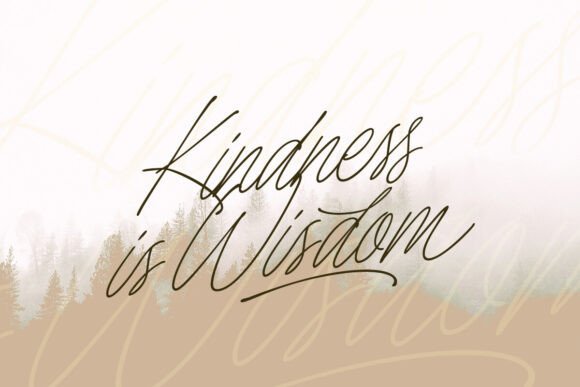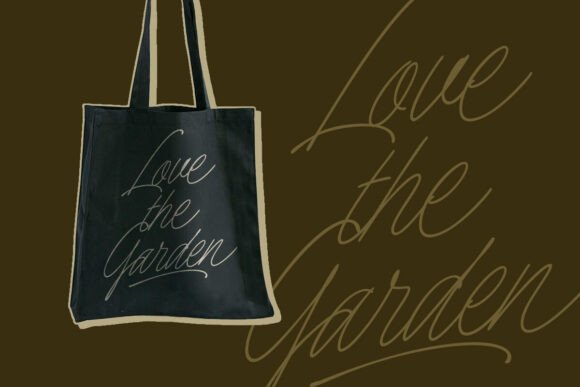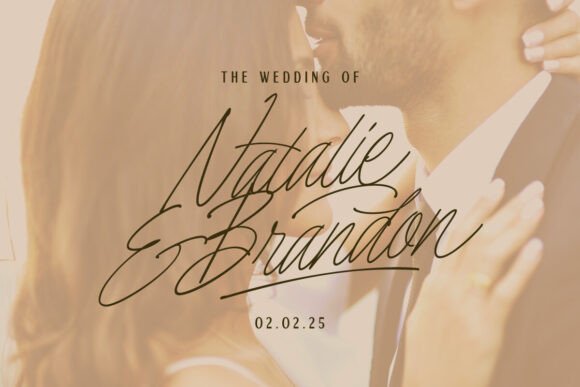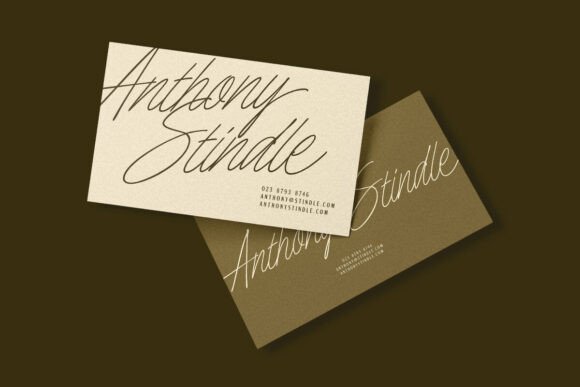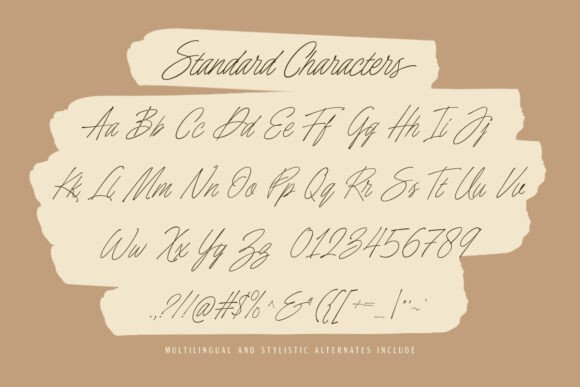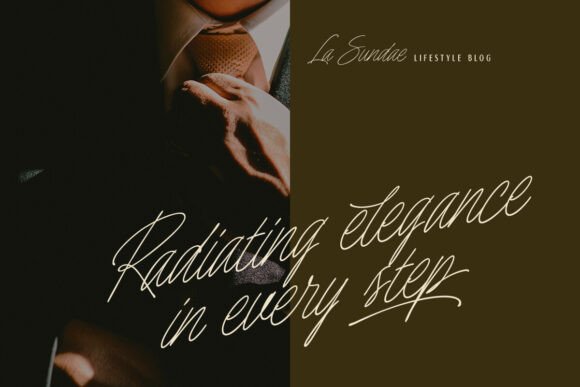
Astonilac Font: Elevate Your Designs with Elegance and Sophistication
In the world of typography, few fonts manage to convey the essence of luxury and refinement as effectively as Astonilac. This stunning script font is designed to exude sophistication and fluidity, making it an ideal choice for designers and crafters looking to add a touch of elegance to their projects. With its graceful, flowing strokes and refined curves, Astonilac is perfect for a wide range of applications, from branding and wedding invitations to elegant logos, fashion designs, and high-end packaging.
The Characteristics of Astonilac Font
Astonilac’s design is characterized by its fluid, connected script style, which gives it a sense of movement and dynamism. The font features:
- Flowing Strokes: Astonilac’s strokes are designed to flow smoothly into one another, creating a sense of continuity and elegance.
- Refined Curves: The font’s curves are meticulously crafted to provide a sense of sophistication and luxury.
- Sophisticated Ligatures: Astonilac includes a range of ligatures that add to its elegance and help to create a seamless, connected look.
Uses of Astonilac Font
Astonilac’s versatility makes it suitable for a variety of design projects. Here are some of the ways you can use this beautiful font:
- Branding: Use Astonilac to create a luxurious brand identity that stands out from the competition. Its elegant appearance makes it perfect for high-end brands looking to convey sophistication and refinement.
- Wedding Invitations: Add a touch of romance and elegance to your wedding invitations with Astonilac. Its flowing script style creates a beautiful, memorable impression.
- Elegant Logos: Create a lasting impression with an elegant logo designed using Astonilac. This font is ideal for businesses that want to convey luxury, sophistication, and refinement.
- Fashion Designs: Astonilac is a great choice for fashion designers looking to add a touch of elegance to their designs. Use it for branding, packaging, or promotional materials to create a high-end look.
- High-End Packaging: Elevate your packaging designs with Astonilac’s sophisticated appearance. This font is perfect for luxury brands looking to create a premium feel for their products.
Why Choose Astonilac Font?
With so many fonts available, why choose Astonilac? Here are a few reasons why designers and crafters love this stunning script font:
- Unique and Memorable: Astonilac’s elegant design makes it stand out from more common fonts. Its unique appearance ensures that your designs will be memorable and leave a lasting impression.
- Versatile: Astonilac is a versatile font that can be used for a wide range of design projects. Its adaptability makes it a great addition to any designer’s font library.
- Elegant and Sophisticated: This font exudes elegance and sophistication, making it perfect for high-end designs. Its refined appearance ensures that your projects will look luxurious and refined.
Tips for Using Astonilac Font
To get the most out of Astonilac, here are a few tips to keep in mind:
- Pair with Simple Fonts: Astonilac’s elegant design can be overwhelming if paired with busy or ornate fonts. Pair it with simple, clean fonts to create a balanced look.
- Use for Headings and Titles: Astonilac is perfect for headings and titles, where its elegant appearance can shine. Use it to create a lasting impression and draw attention to important information.
- Experiment with Colors: Astonilac looks great in a variety of colors, from metallic gold and silver to rich jewel tones. Experiment with different colors to find the perfect match for your design.
Astonilac font is a stunning script font that exudes sophistication and fluidity. Its elegant design makes it perfect for a wide range of design projects, from branding and wedding invitations to elegant logos, fashion designs, and high-end packaging. With its flowing strokes, refined curves, and sophisticated ligatures, Astonilac is sure to elevate your designs and add a touch of luxury. Whether you’re a designer or crafter, this beautiful font is a great addition to your toolkit.